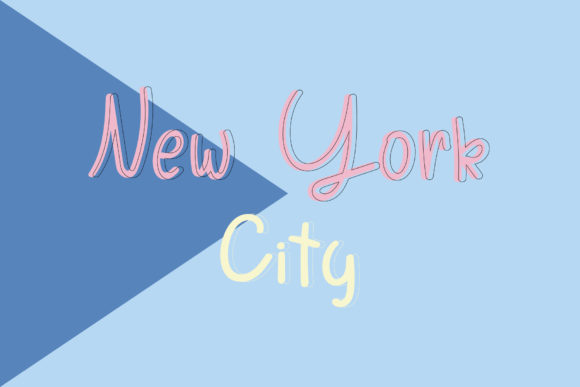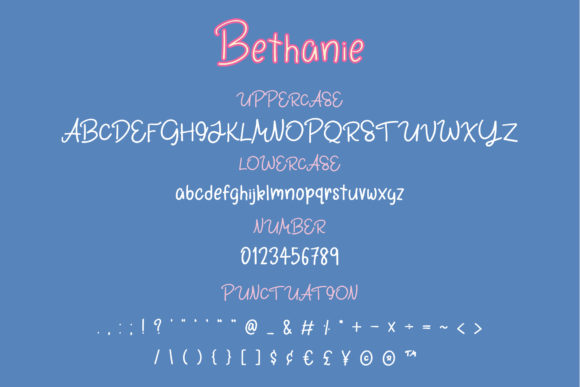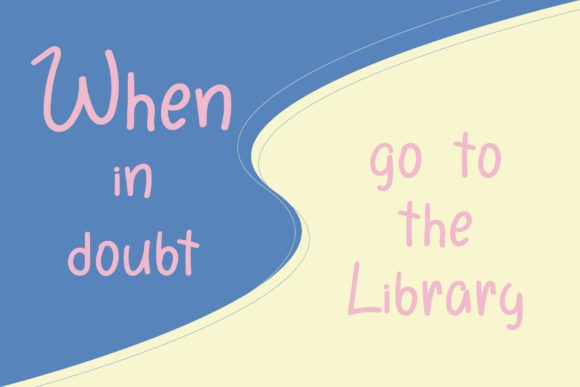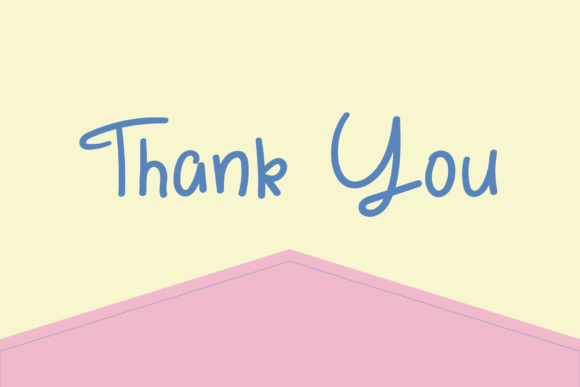
Bethanie Font
About Bethanie Font
Bethanie feels equally charming and elegant. This handwritten font is the perfect fit for all of your logos, branding, social media, and crafty DIY projects. Fall in love with its incredibly versatile style and use it to create spectacular designs!